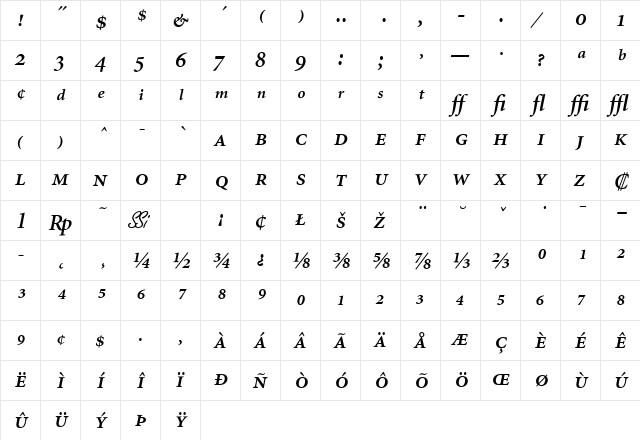
Atlantix Pro SSi Semi Bold Italic
Design Context for Atlantix Pro SSi Typeface
Atlantix Pro SSi is a composed and adaptable typeface that performs quietly and consistently across a wide range of design contexts. The slanted form adds forward momentum and visual energy. Its bold stroke weight gives it real presence on the page.